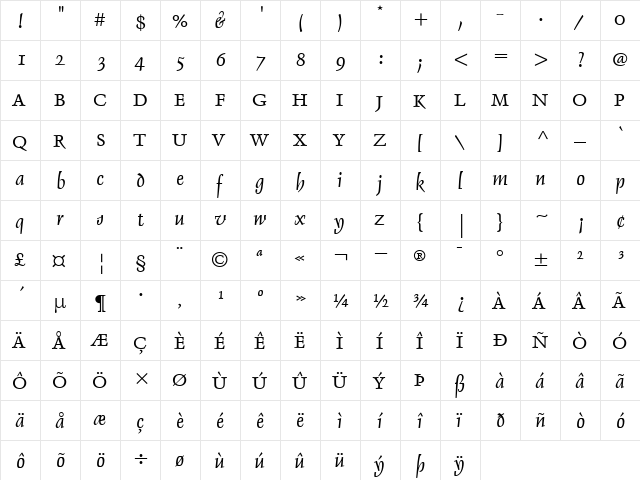
DelphinI RomanItalic
Design Context for DelphinI Typeface
DelphinI is a composed and adaptable typeface that performs quietly and consistently across a wide range of design contexts. Its italic angle brings a sense of urgency and motion to the letterforms.